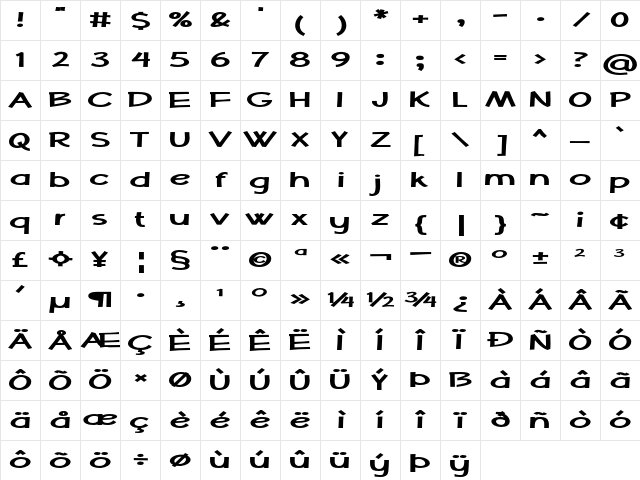
Middle School Extra-expanded Bold
Style: Extra-expanded Bold
Middle School Family
Middle School Extra-expanded Bold
Design Context for Middle School
Middle School is a composed and adaptable typeface that performs quietly and consistently across a wide range of design contexts. Its bold stroke weight gives it real presence on the page.
Pro Tip: Use Middle School in both headline and body roles to test its range before committing to a single application.